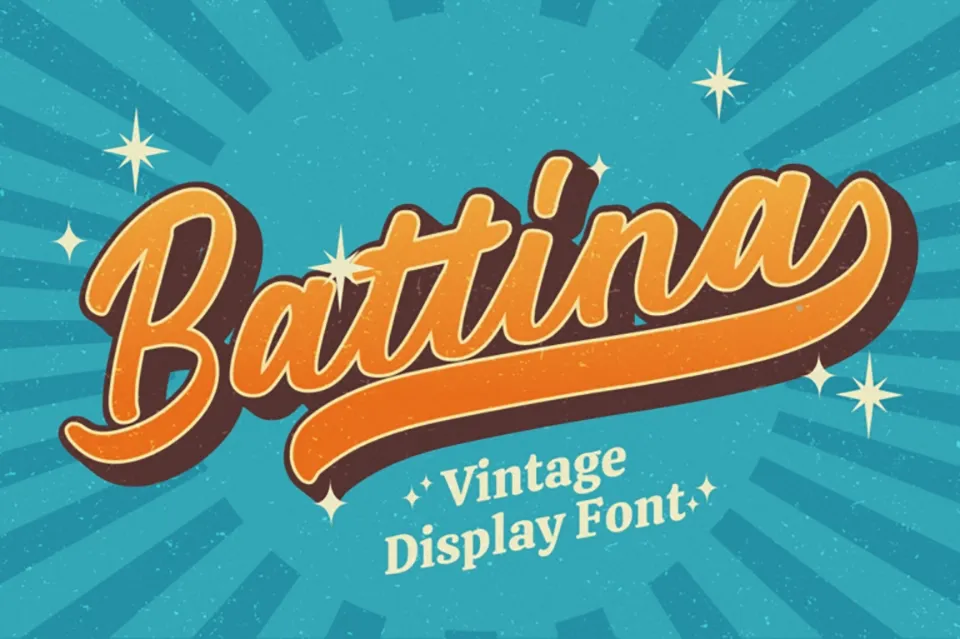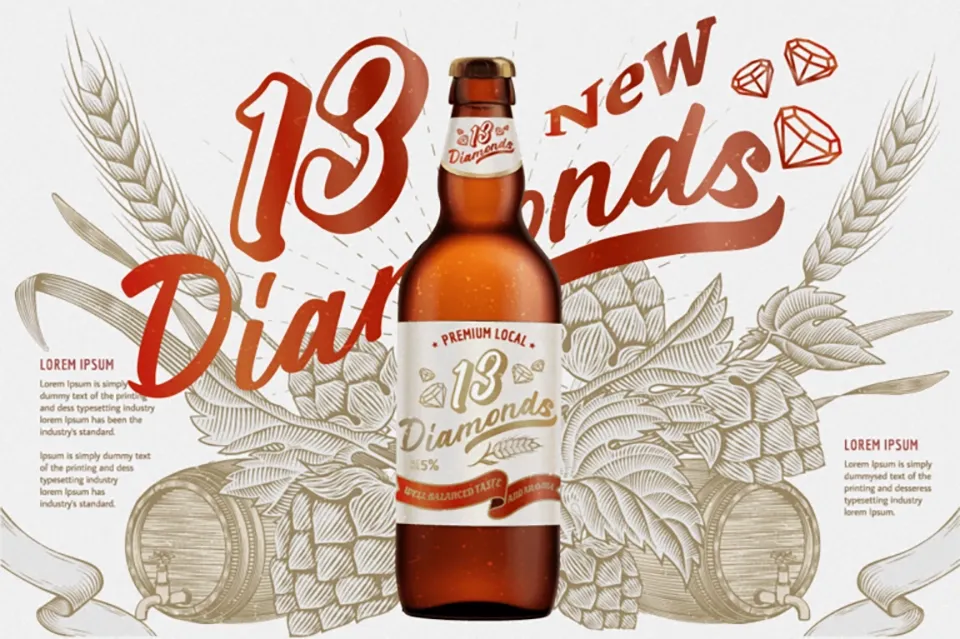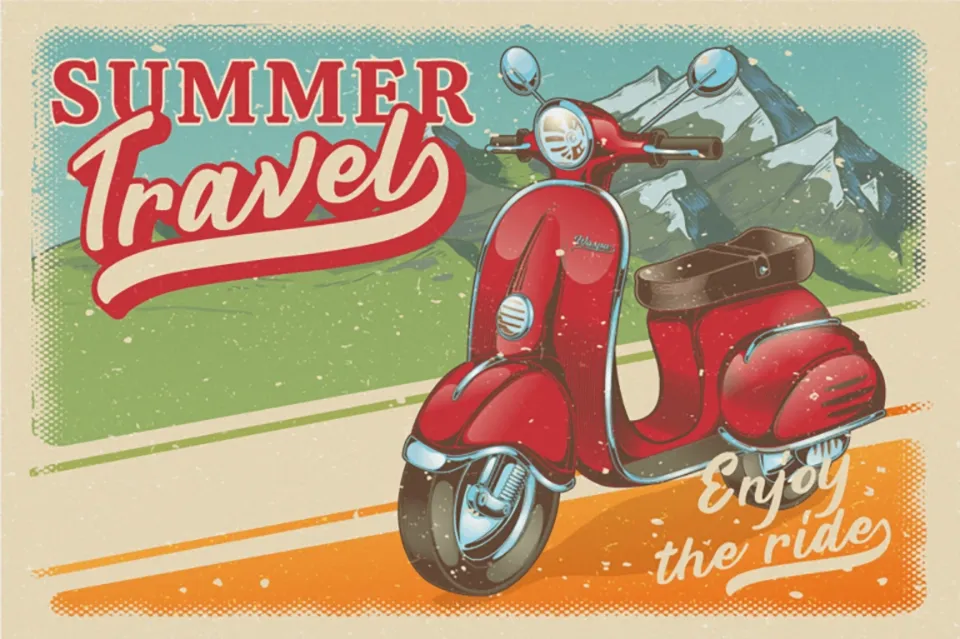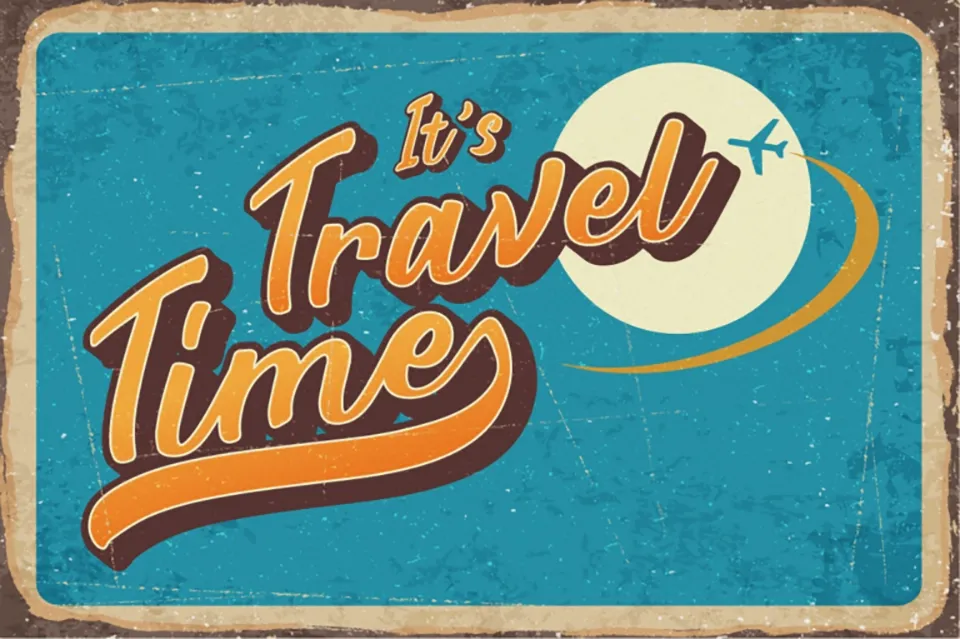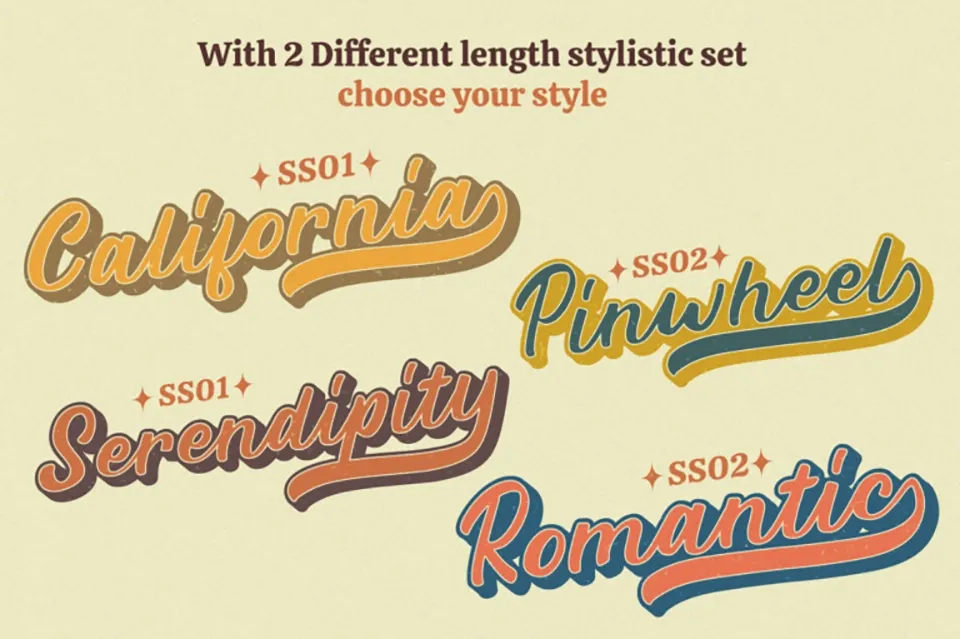
Battina Font
Inspired by 1970s typography, Battina blends vintage charm with retro aesthetics. Featuring two styles (Regular and Extruded), this font family enables effortless 3D effects through layered combinations. Its playful curves and nostalgic appeal make it ideal for children’s products, branding, logos, invitations, stationery, packaging, and game titles. Perfect for projects requiring whimsical or retro-modern visuals, Battina excels in book covers, monograms, blog designs, and merchandise. The Extruded variant adds dimensional depth, while the Regular style maintains clean readability. Both variants support creative applications from cute-style designs to commercial branding, capturing the essence of mid-century typography with contemporary versatility.